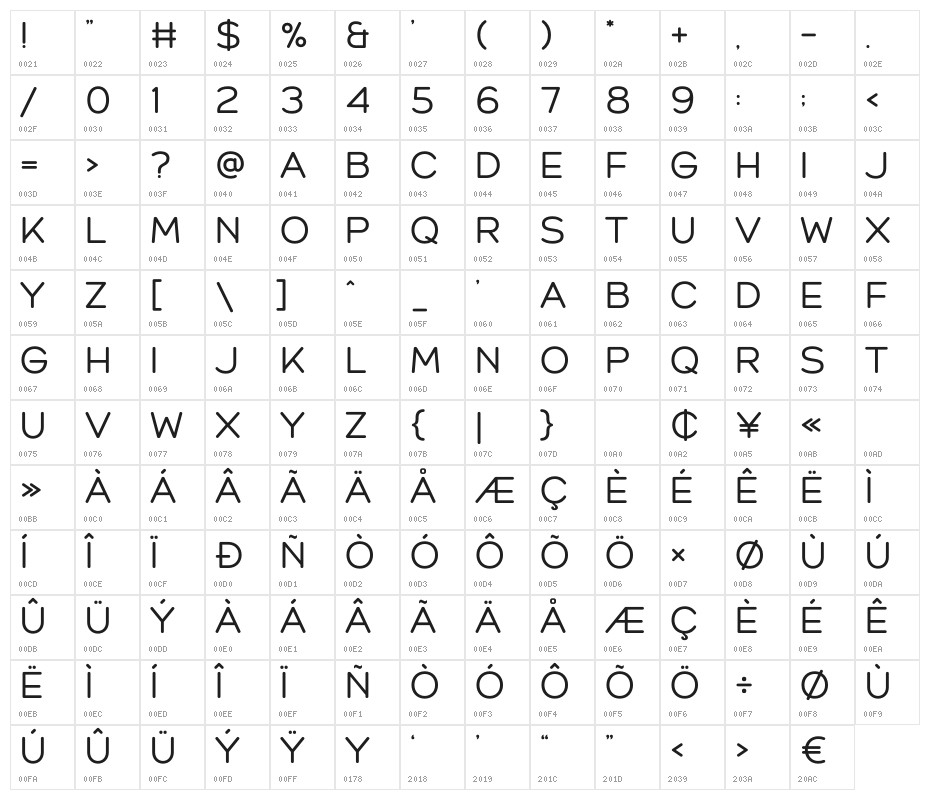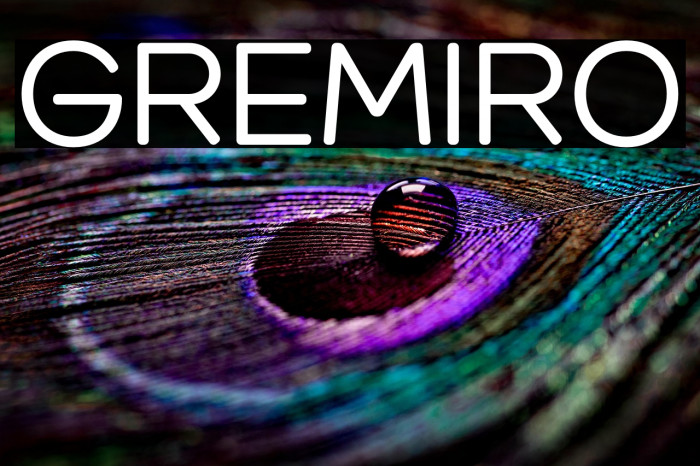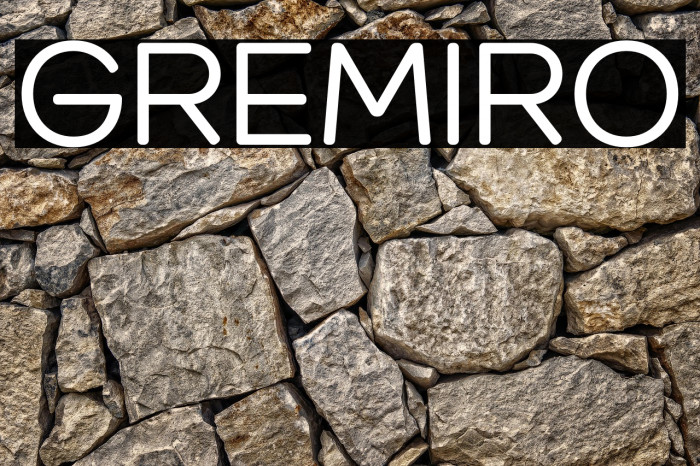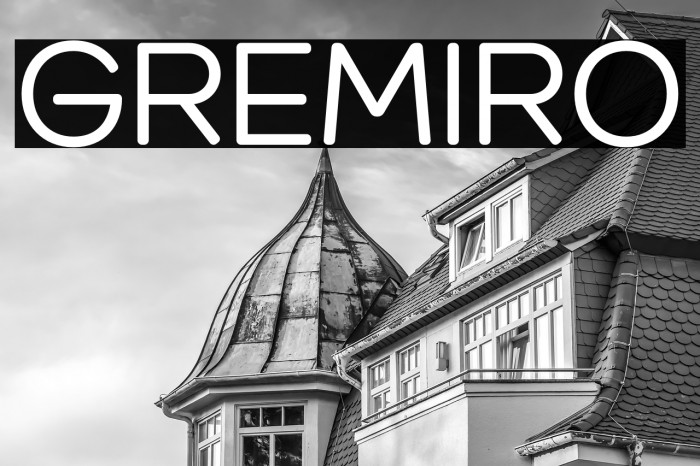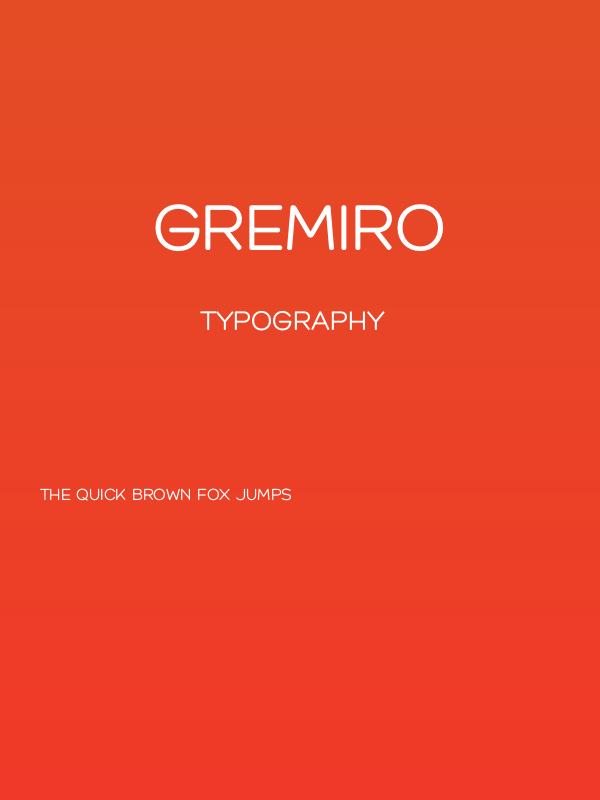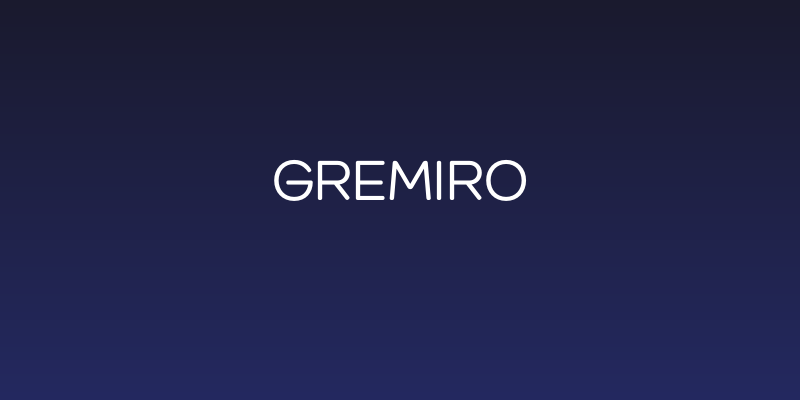
Gremiro Font
Gremiro Description
This font features a clean and modern sans-serif style with smooth, rounded edges and uniform stroke widths. The characters are evenly spaced, providing a balanced and harmonious appearance. The uppercase and lowercase letters maintain a consistent height, contributing to a cohesive look. The numerals are clear and legible, matching the overall aesthetic of the alphabet. Special characters are well-integrated, ensuring versatility in various design contexts. The simplicity and clarity of this font make it suitable for a wide range of applications, from digital interfaces to print media.
| Use Case | Headlines, Body text, Logos |
| Proposed Projects | Ideal for branding, web design, user interfaces, and print materials where clarity and modernity are desired. |